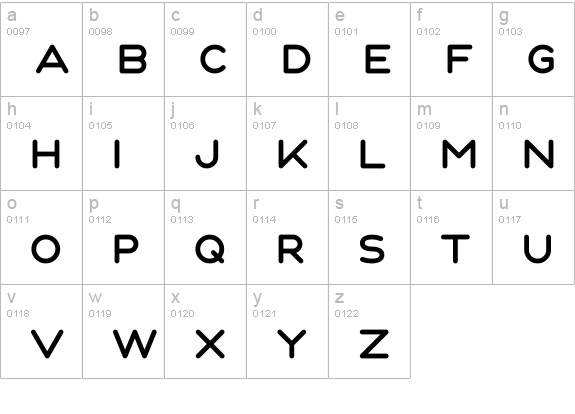
Fun City Level 2 Basic font is a playful and vibrant typeface that will add a touch of fun and excitement to your projects. This font features quirky and whimsical characters that are perfect for creating eye-catching designs. With its clean lines and bold shapes, Fun City Level 2 Basic font is versatile and can be used for various purposes such as posters, invitations, logos, and more. Best of all, Fun City Level 2 Basic font is available for free download at FontsMarket.com. So you can easily add this fun and energetic font to your collection without any cost. Don't miss out on this fantastic opportunity to enhance your designs with the unique charm of Fun City Level 2 Basic font. Download it now and let your creativity shine!